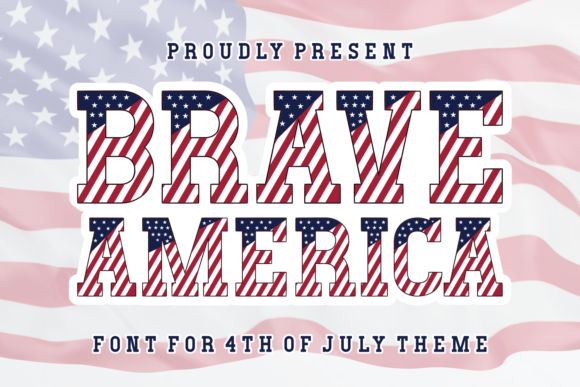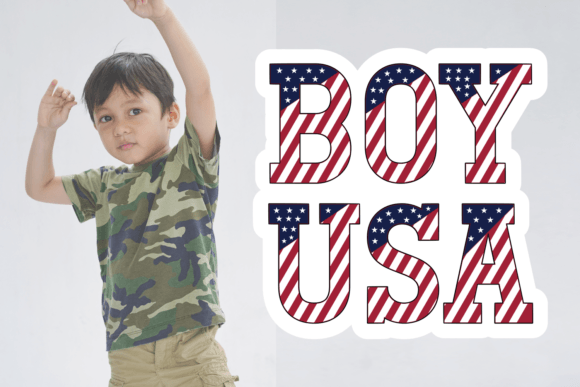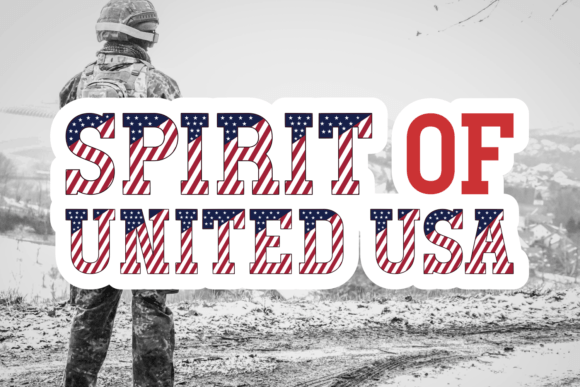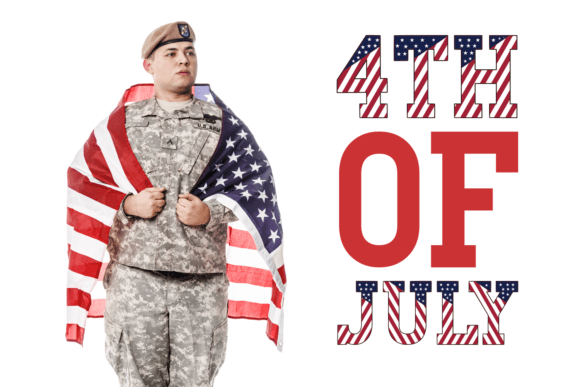
Brave America Font
About the Brave America Font
Let us introduce you to Brave America Font, where timeless design meets modern craftsmanship. Introducing the eye-catching ‘4th Of July’ font, uniquely tailored to capture the spirit of American Independence Day. This decorative typeface radiates authenticity and originality, with its clean, pleasing visual quality that easily enhances any piece it’s incorporated into. Whether you’re designing cards, book covers, t-shirts, posters, logos or invitations — celebrate the essence of July 4th and ensure your message resonates.
Brave America is ideally suited for headlines, logos, and short, impactful text in projects celebrating Americana, patriotism, or historical themes. Its strong, bold personality makes it less effective for body copy or extended reading. Avoid using it in user interfaces or situations requiring high readability.
The font’s bold and slightly rebellious character pairs well with clean sans-serif fonts like Open Sans for body text, creating a strong contrast. For a more refined look, consider pairing it with a classic serif like Garamond or a subtly geometric sans-serif like Futura.
Brave America’s core personality is bold and assertive, conveying a sense of strength and national pride. It projects a modern yet patriotic feel, suitable for brands that emphasize heritage, independence, and American values.
Brave America Font Usage Examples
Brave America Font Example